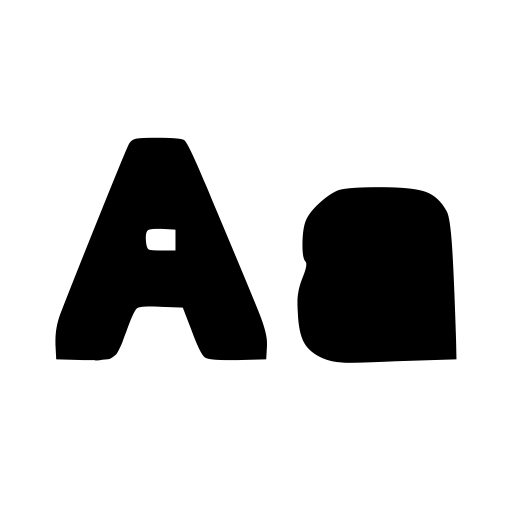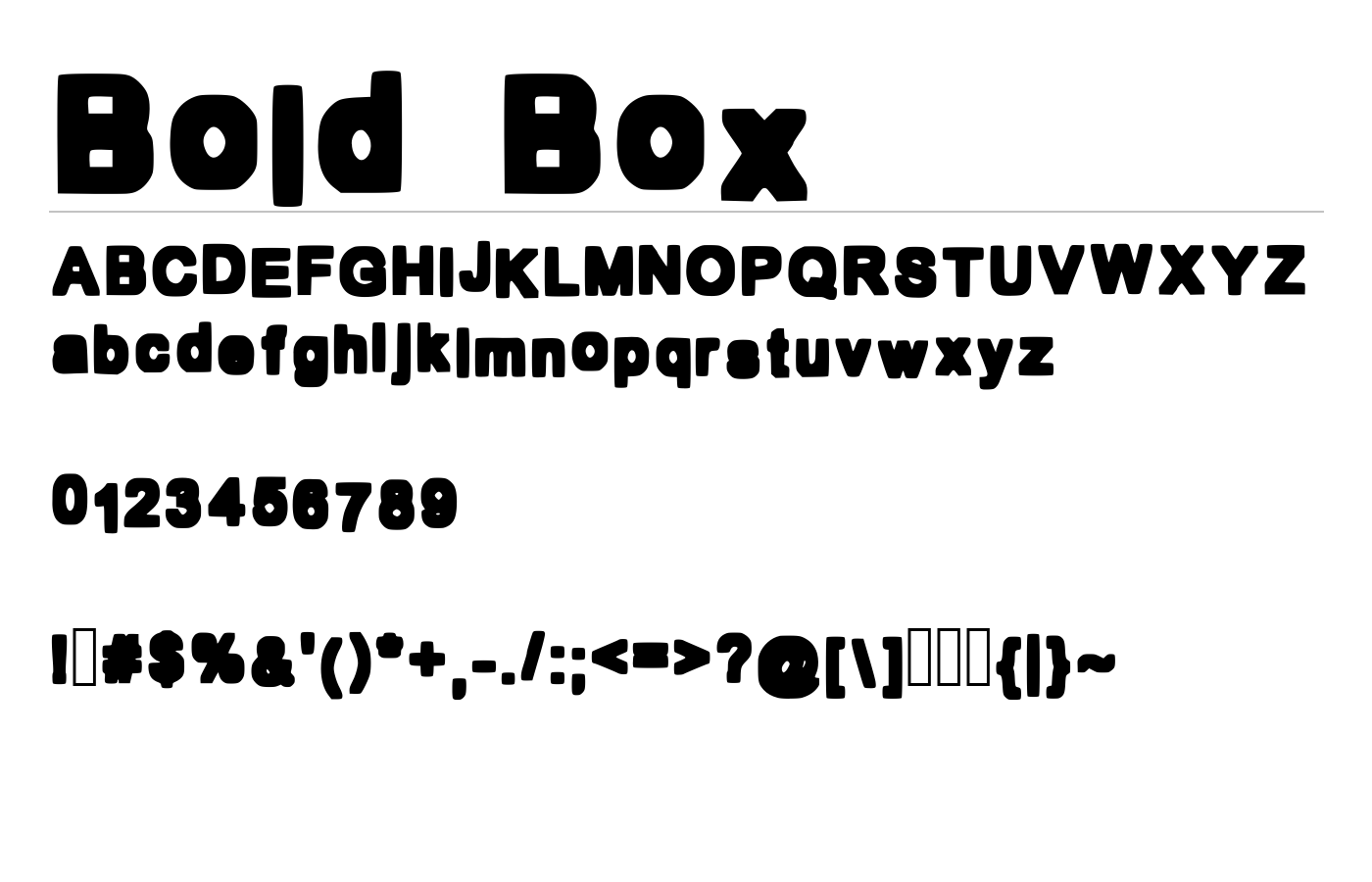
Bold Box Font is a striking, playful sans serif characterized by its heavy, blocky weight and irregular, hand-crafted shapes. With its rounded corners and friendly, bold presence, it conveys a casual, approachable vibe that works great for eye-catching headlines, logos, and fun packaging designs. This font stands out by combining warmth with impact, making it ideal for brands seeking a unique, informal style.
Bold Box Font